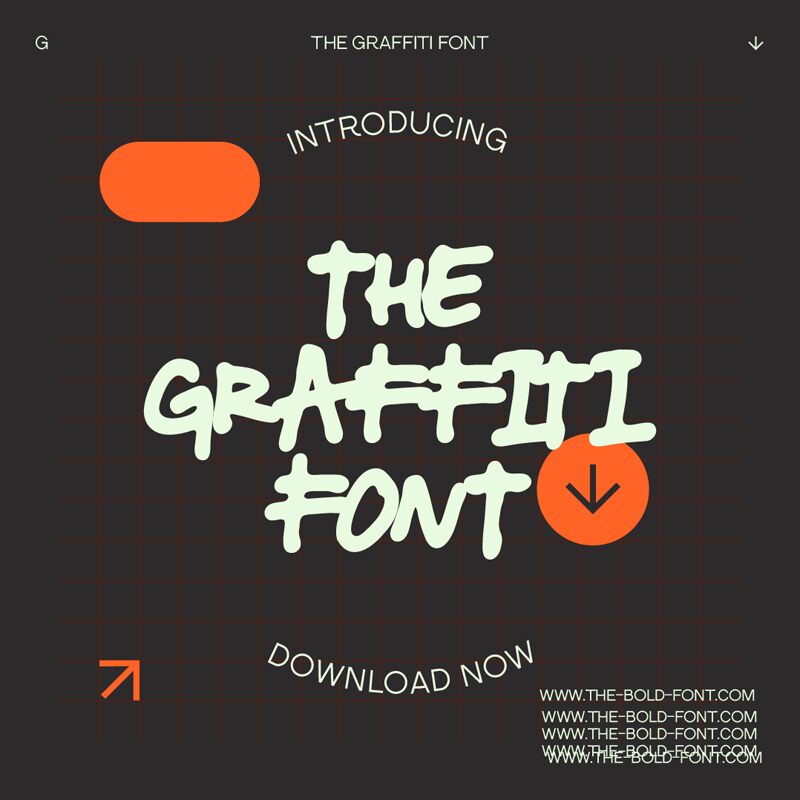
The Graffiti Font by Sven Pels is a free font that captures the rebellious and artistic essence of street art. With its energetic and informal style, this typeface beautifully encapsulates the dynamic and expressive nature of graffiti. Urban and modern, its lettering feels lively, embodying the energetic vibes typical of street culture.
The Graffiti Font is perfect for designs that require a touch of urban aesthetics such as streetwear branding, music album covers, event posters, or website headers. Use it for artistic projects, social media posts, magazine layouts, school projects, flyers, stickers, and more.